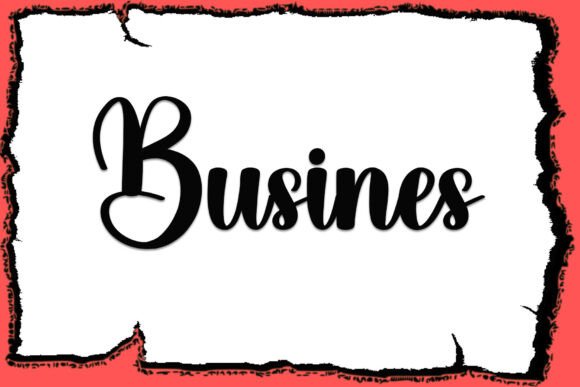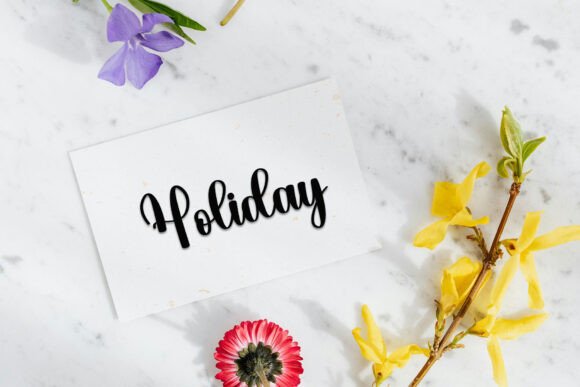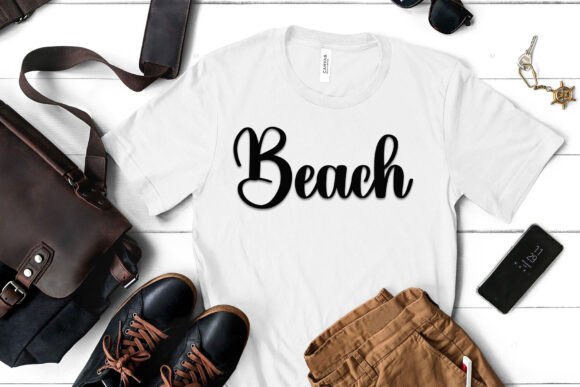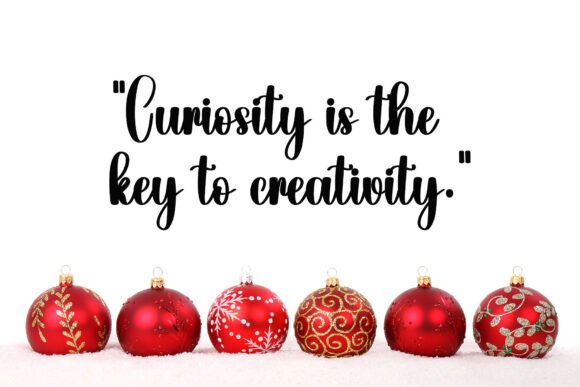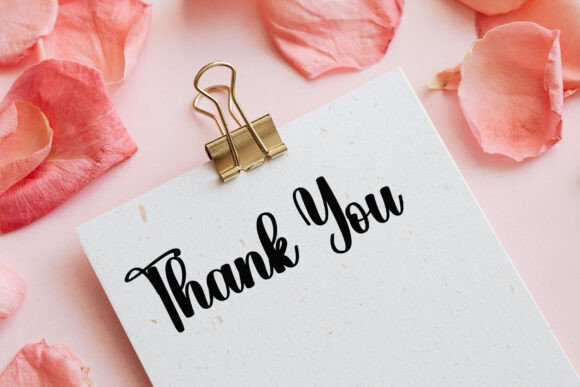
Hello Baby Font: Elevate Your Designs with Elegance and Class
In the world of typography, fonts play a crucial role in conveying the tone and aesthetic of a design. For designers and crafters looking to add a touch of sophistication and elegance to their projects, the Hello Baby Font is an excellent choice. This trendy handwritten font boasts a contemporary atmosphere and impeccable form, drawing inspiration from timeless classic calligraphy.
The Characteristics of Hello Baby Font
Hello Baby Font is characterized by its flowing, cursive script that exudes a sense of refinement and luxury. Each letter is carefully crafted to ensure a harmonious and balanced look, making it perfect for a variety of design applications. Whether you’re working on a branding project, packaging design, or digital content, this font is sure to elevate your work with its classic yet modern appeal.
Inspiration from Timeless Classic Calligraphy
The Hello Baby Font draws inspiration from traditional calligraphy, which has been a cornerstone of elegant writing for centuries. Classic calligraphy is known for its precise lettering, beautiful flourishes, and overall sense of grandeur. By incorporating these elements into a modern font, Hello Baby Font brings a touch of timeless sophistication to contemporary design.
Key Features of Hello Baby Font
- Trendy and Contemporary: Despite being inspired by classic calligraphy, Hello Baby Font has a distinctly modern feel that will appeal to designers looking for a fresh and current look.
- Elegant and Classy: The font’s refined and sophisticated appearance makes it ideal for projects that require a high level of elegance and poise.
- Handwritten with Love: The personal touch of a handwritten font can add warmth and character to any design, and Hello Baby Font delivers this in spades.
- Versatile: From logos and branding to invitations and digital content, Hello Baby Font can be used across a wide range of design projects.
How to Use Hello Baby Font in Your Designs
- Branding and Logos: Create a lasting impression with a logo that combines Hello Baby Font with a simple yet effective design.
- Wedding and Event Invitations: Add a touch of romance and sophistication to your invitations with this elegant font.
- Packaging Design: Stand out on store shelves with product packaging that features Hello Baby Font.
- Digital Content: Enhance your blog posts, social media graphics, and website content with the refined look of Hello Baby Font.
Tips for Pairing Hello Baby Font with Other Fonts
To maximize the impact of Hello Baby Font, consider pairing it with complementary fonts. Here are some tips:
- Contrast with Sans Serifs: Pairing Hello Baby Font with a clean sans serif font can create a visually appealing contrast.
- Match with Serif Fonts: For a more traditional look, combine Hello Baby Font with a serif font for a cohesive feel.
- Experiment with Script Fonts: For a bold statement, try pairing Hello Baby Font with another script font for a layered, textured look.
Hello Baby Font is a versatile and elegant typeface that can elevate any design project. Its unique blend of classic calligraphy and modern sensibility makes it a valuable addition to any designer’s toolkit. Whether you’re creating branding materials, event invitations, or digital content, Hello Baby Font is sure to bring a touch of sophistication and class to your work.